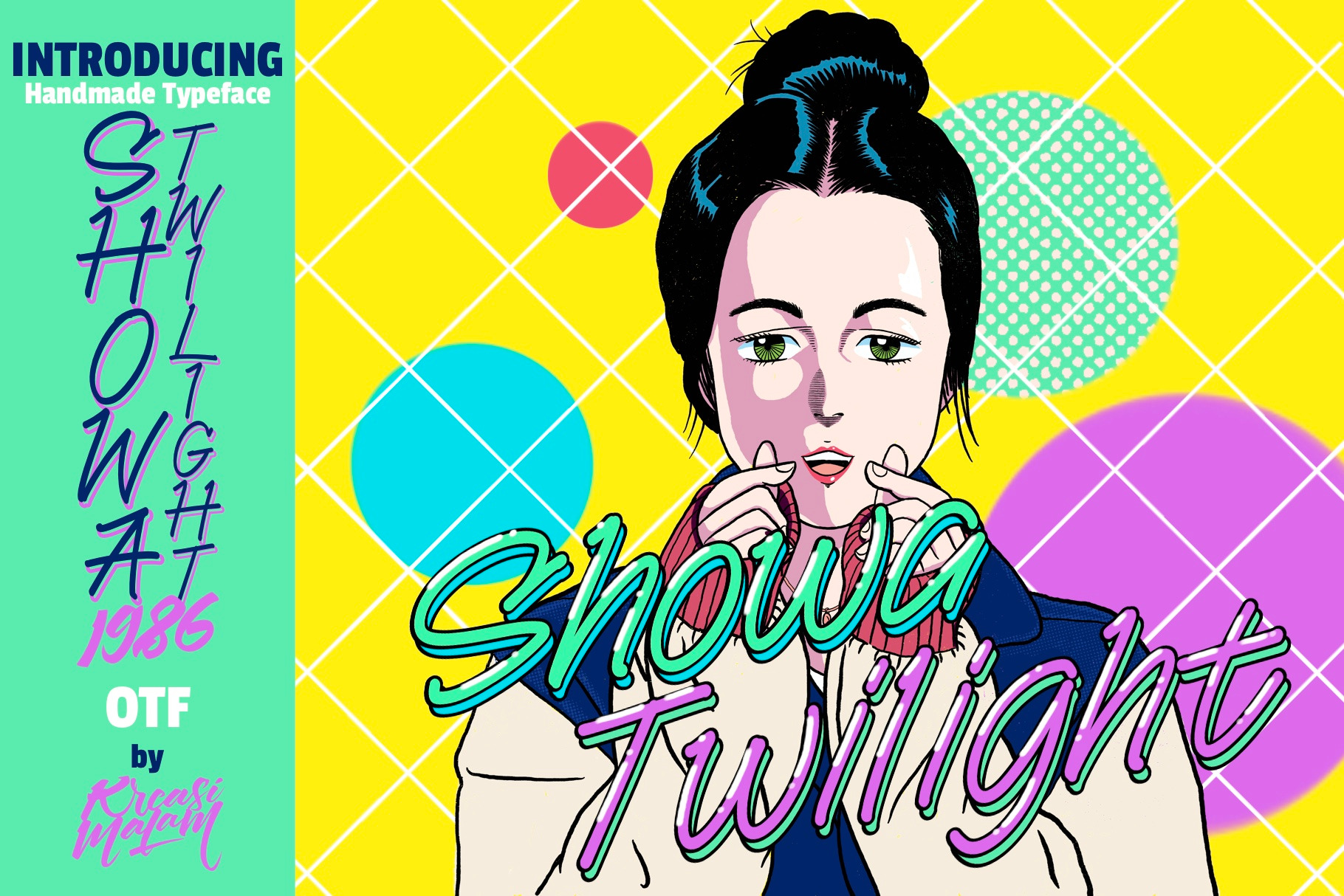
Showa Twilight Font
Showa Twilight is a handmade font with script style would be awesome for your design projects. It could be fitted for logos, quotes, t-shirts, posters or anything. Available in uppercase, lowercase, numerals and punctuations.